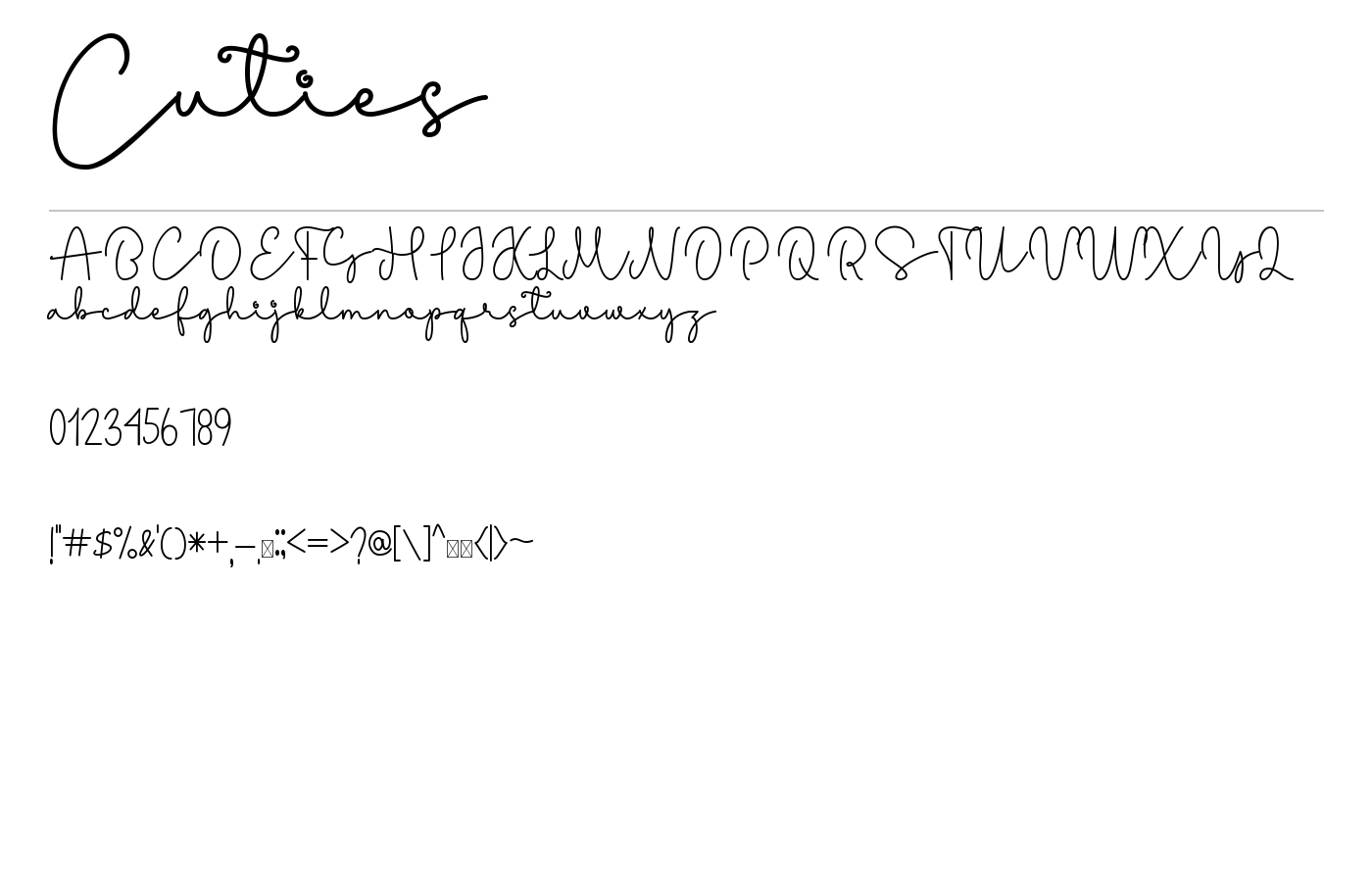
Cuties Font is a delicate, handwritten script with slender, flowing lines that give it a playful and charming personality. Its tall, airy letterforms and whimsical curves make it perfect for creative projects needing a personal, lighthearted touch, such as invitations, greeting cards, or casual branding. This font’s elegant simplicity adds a warm, friendly vibe that works beautifully in both display and decorative uses.
Cuties Font
About Cuties Font
| Font family | Cuties Font |
| Designer | Danar Nugroho |